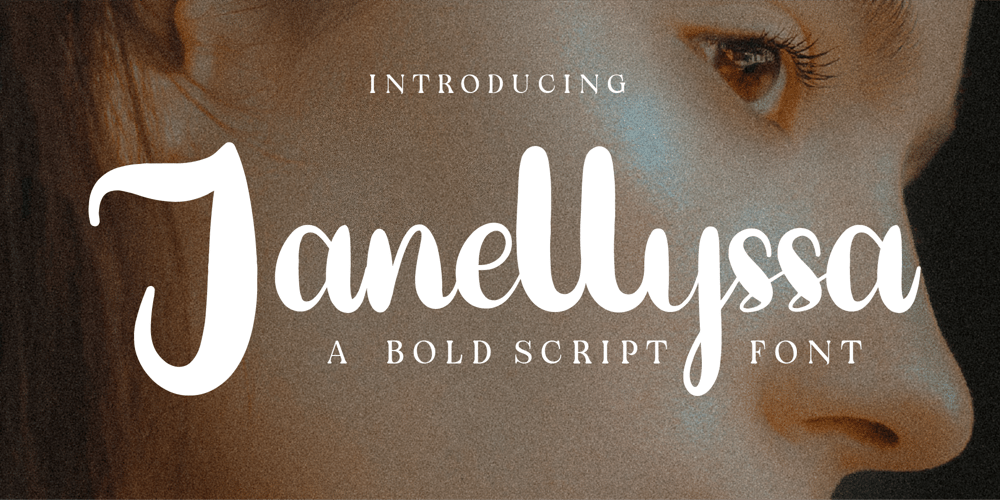
CF Janellyssa
CF Janellyssa font
CF Janellyssa Font Family was designed by Gilang Mei Nugraha, Frederik Aristaputra and published by Creatifont Studio. CF Janellyssa contains 2 styles and family package options. Janellyssa – A Bold & Elegant Script FontUnleash the beauty of handwritten artistry with Janellyssa, a bold script font that combines graceful curves with confident strokes. Designed to be expressive yet sophisticated, this typeface is perfect for branding, invitations, packaging, social media, and editorial designs.With its smooth, flowing letterforms and dynamic presence, Janellyssa strikes the perfect balance between boldness and femininity. Whether you’re designing for fashion, beauty, lifestyle, or creative projects, this font radiates elegance and personality.Why Choose Janellyssa?✨ Bold & Beautiful: A script font with thick, flowing strokes for high impact.💄 Perfect for Stylish Branding: Ideal for beauty, fashion, and upscale businesses.🎨 Versatile & Expressive: Works well for logos, invitations, quotes, and more.🖋 Natural Handwritten Feel: Designed to replicate elegant, effortless handwriting.Let your words shine with confidence and grace—Download Janellyssa today and bring bold sophistication to your designs! ✨🖊️A SUMMARY OF WHAT’S INCLUDED:- Standard Character A-Z, a-z, 0-9, Punctuation & symbols- Regular and Italic- Works on PC & Mac- Simple installation- Accessible in Adobe Creative Suite (Ai, Ps, Id, etc.) even work on Microsoft Word.- PUA Encoded Characters – Fully accessible without additional design software.🌟If you come across any issues or notice anything we might have overlooked while using this product, please feel free to reach out to us. We greatly value your feedback as it helps us enhance and refine our products. Thank you!